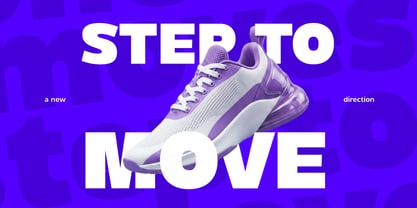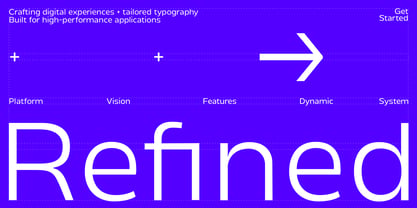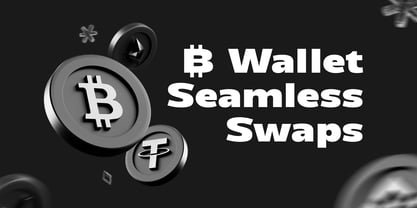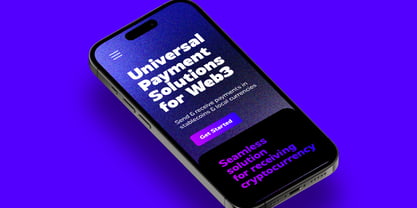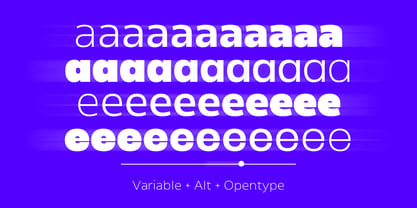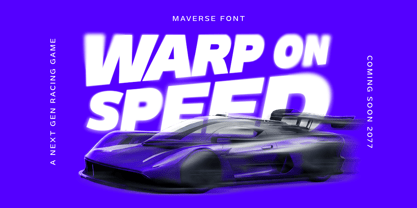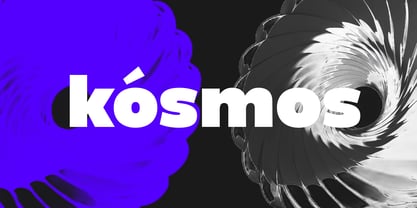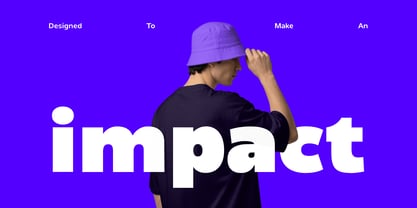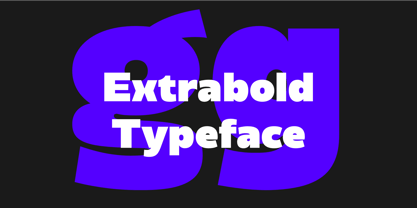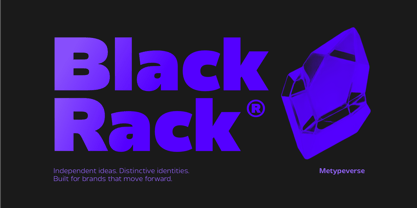
Maverse
Some ideas deserve to be impossible to miss.
Maverse gives your words a bold, clean presence without overwhelming the rest of the design. Its strong forms make it a natural fit for branding, game titles, posters, advertising, landing pages, packaging, and other display work that needs instant visual impact.
Made for designers who want attention without unnecessary noise, Maverse helps your message feel confident, clear, and memorable from the very first glance.